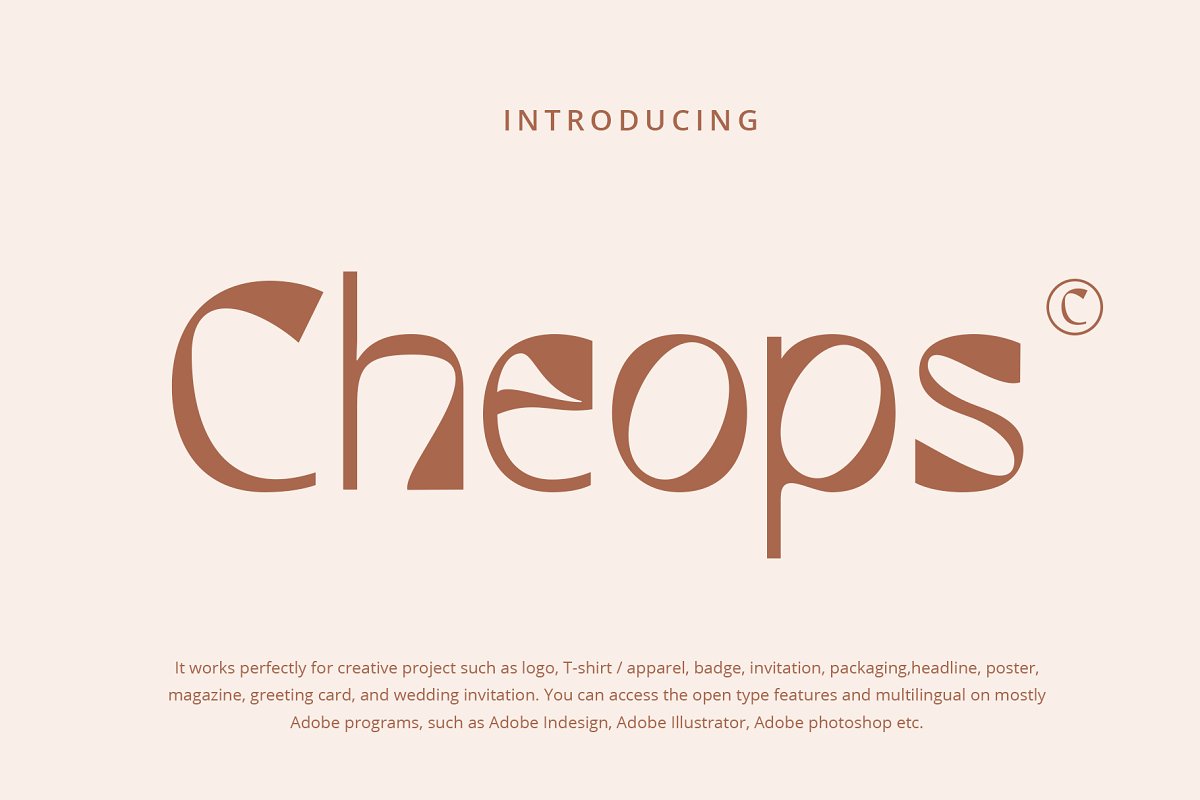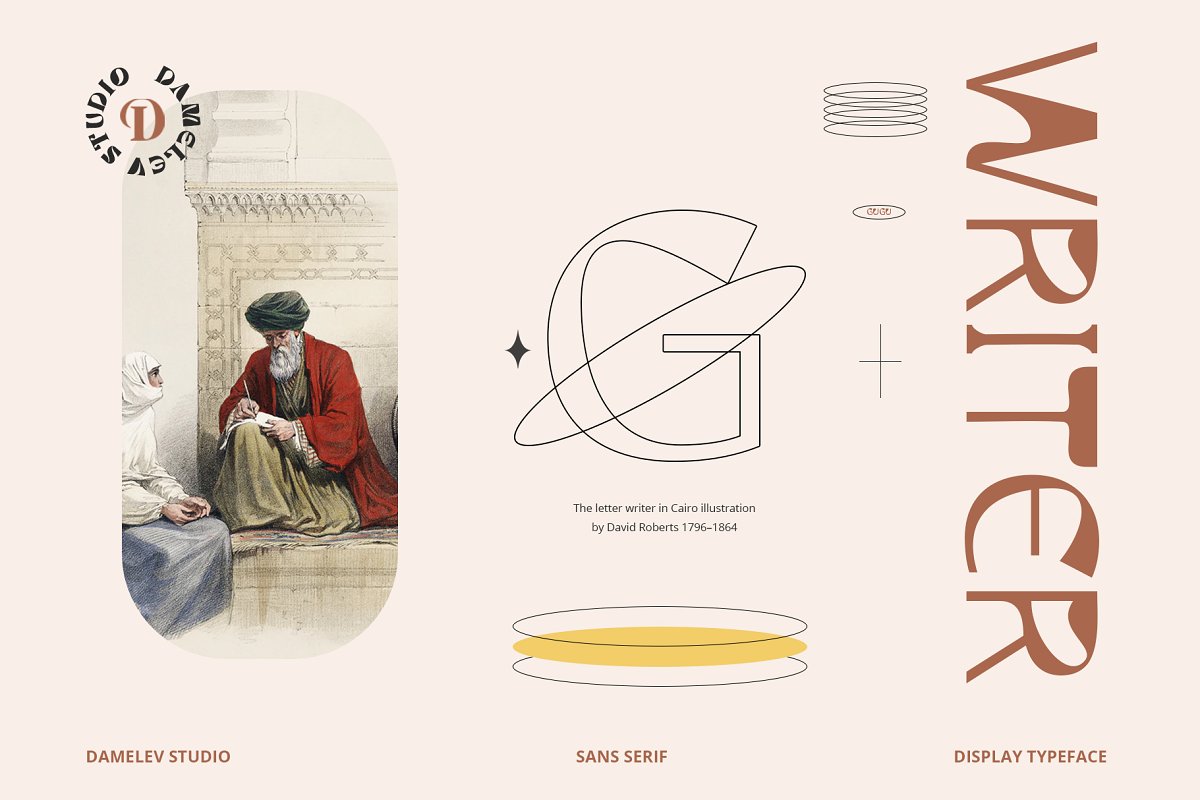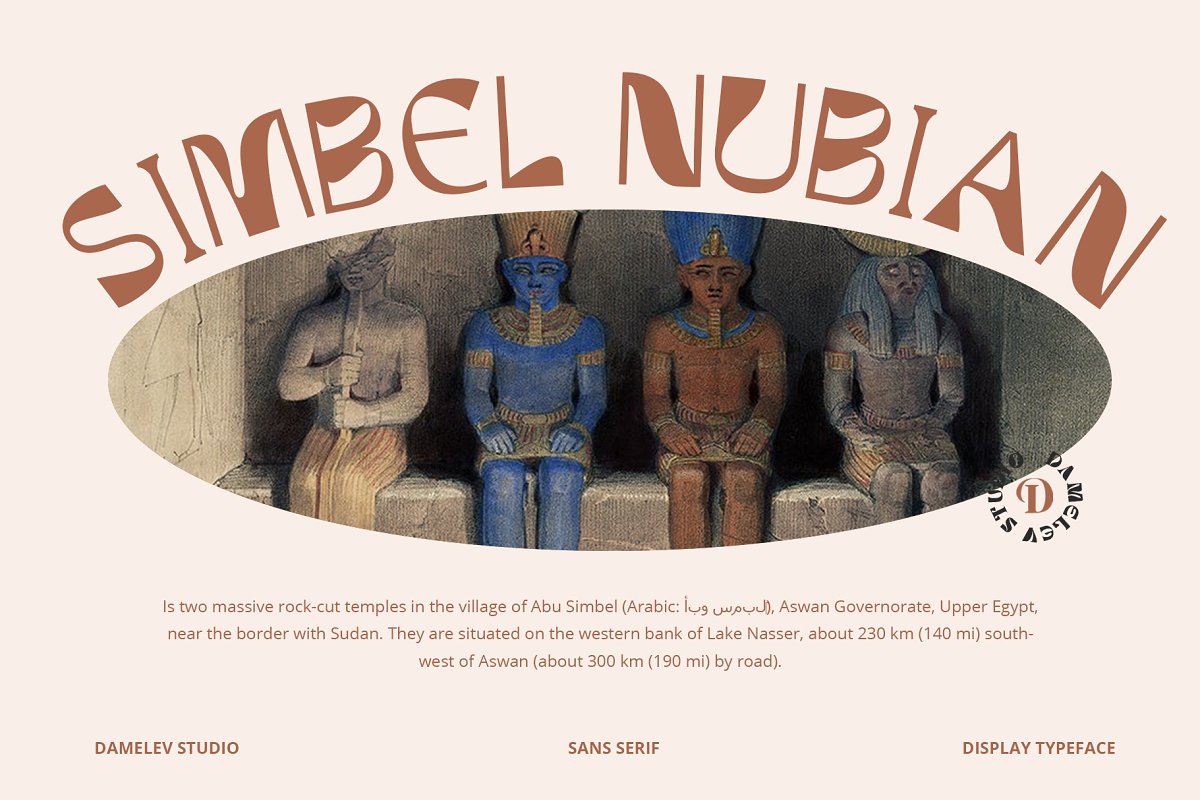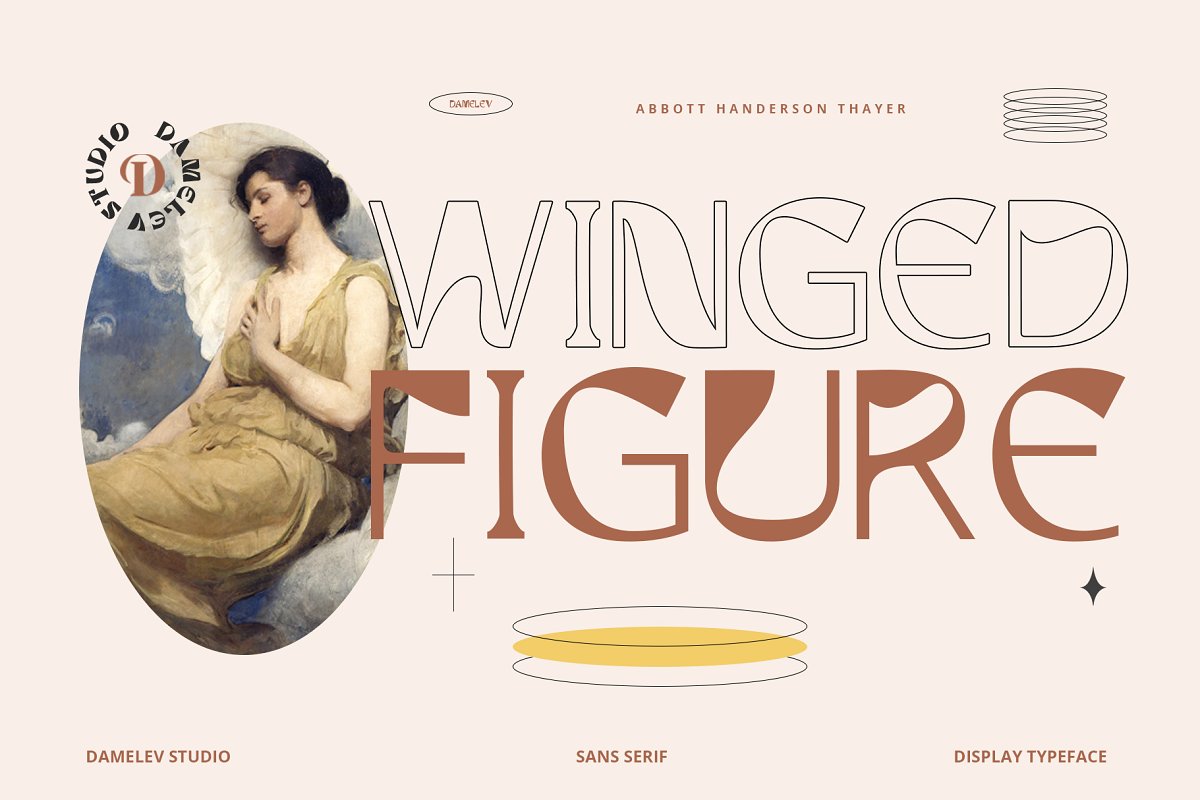
About the Cheops
Cheops is a sans serif font with an elegant appearance, with thin stems giving a luxurious feel to each letter, It works perfectly for creative project such as logo, T-shirt / apparel, badge, invitation, packaging,headline, poster, magazine, greeting card, and wedding invitation, You can access the open type features and multilingual on mostly Adobe programs, such as Adobe Indesign, Adobe Illustrator, Adobe photoshop etc